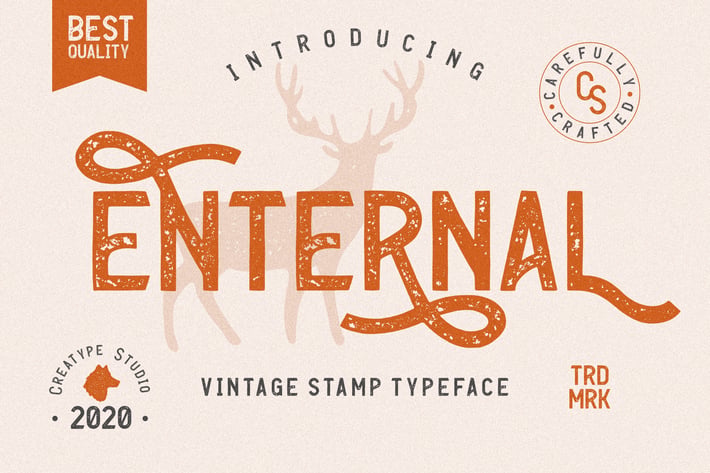
Enternal Vintage Stamp Typeface
Enternal is a vintage sans serif family with stamp textured effect coming with ligature and bunch of alternates.
Enternal is perfect for branding projects, logo, wedding designs, social media posts, advertisements, product packaging, product designs, label, photography, watermark, invitation, stationery and any projects that need handwriting taste.
Ton of glyphs
Ligature & Alternate